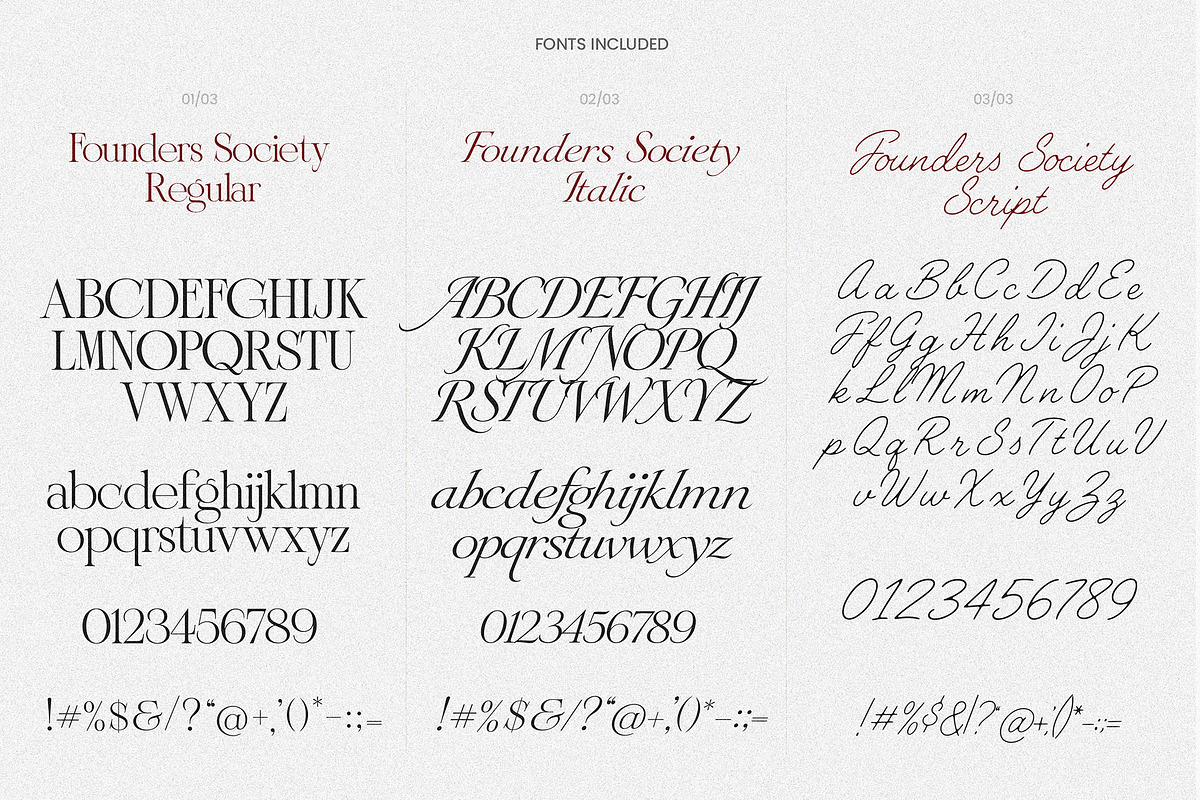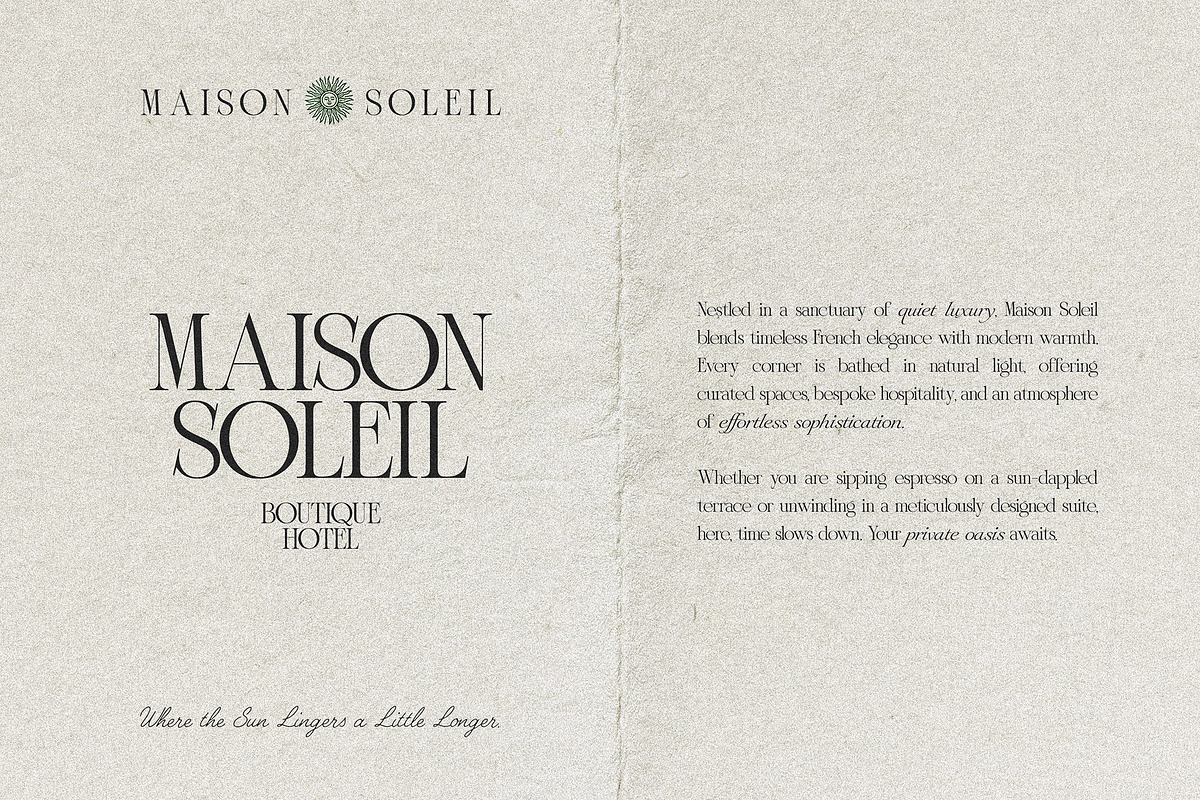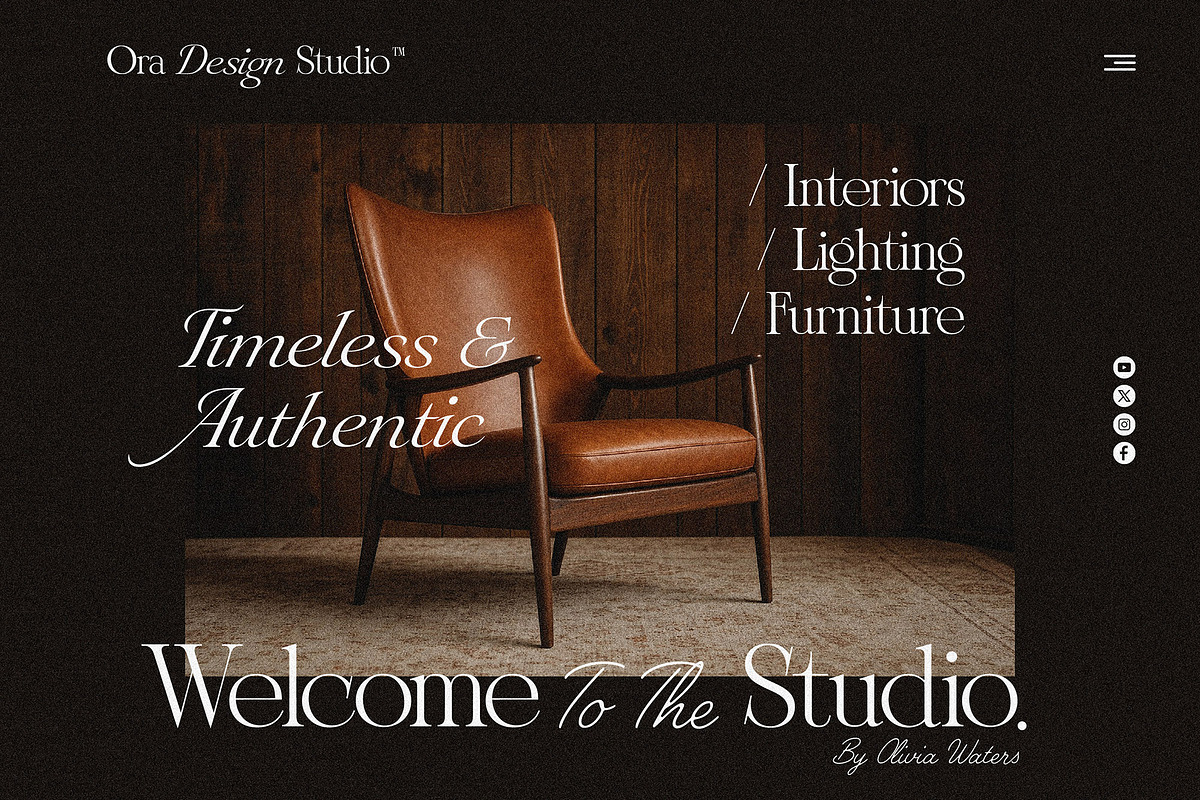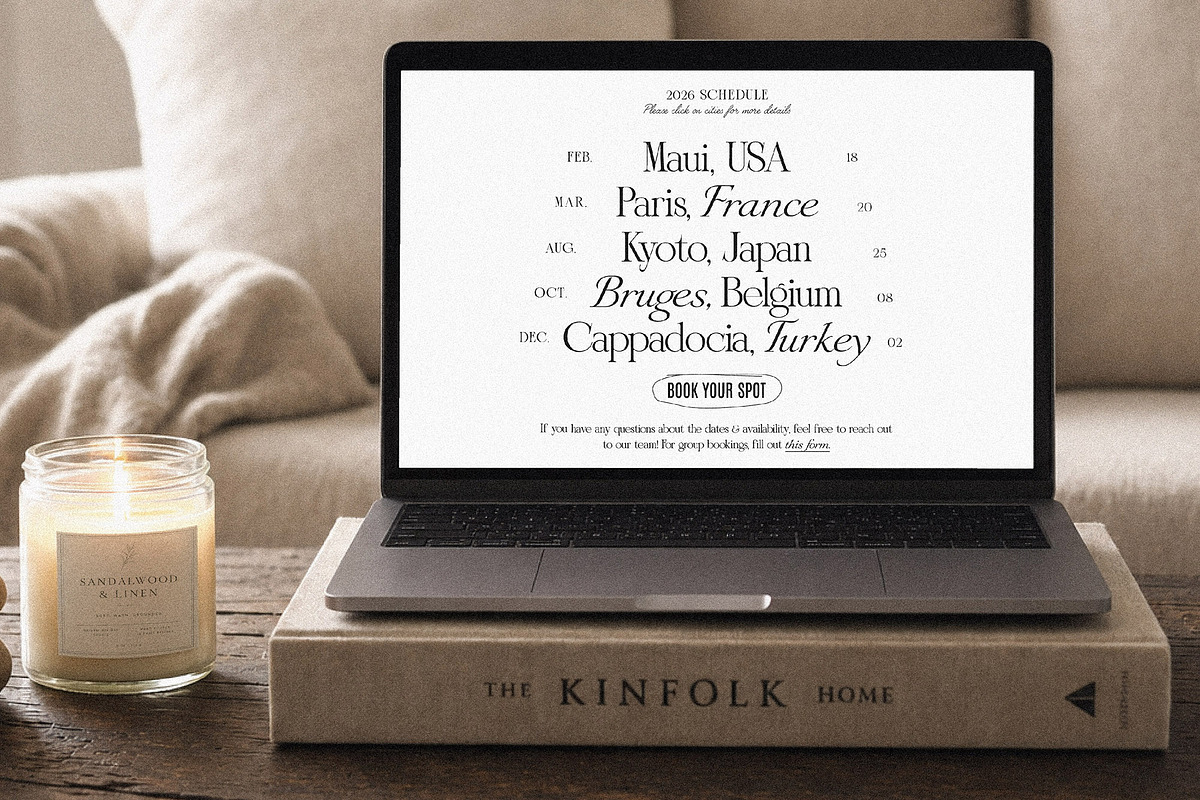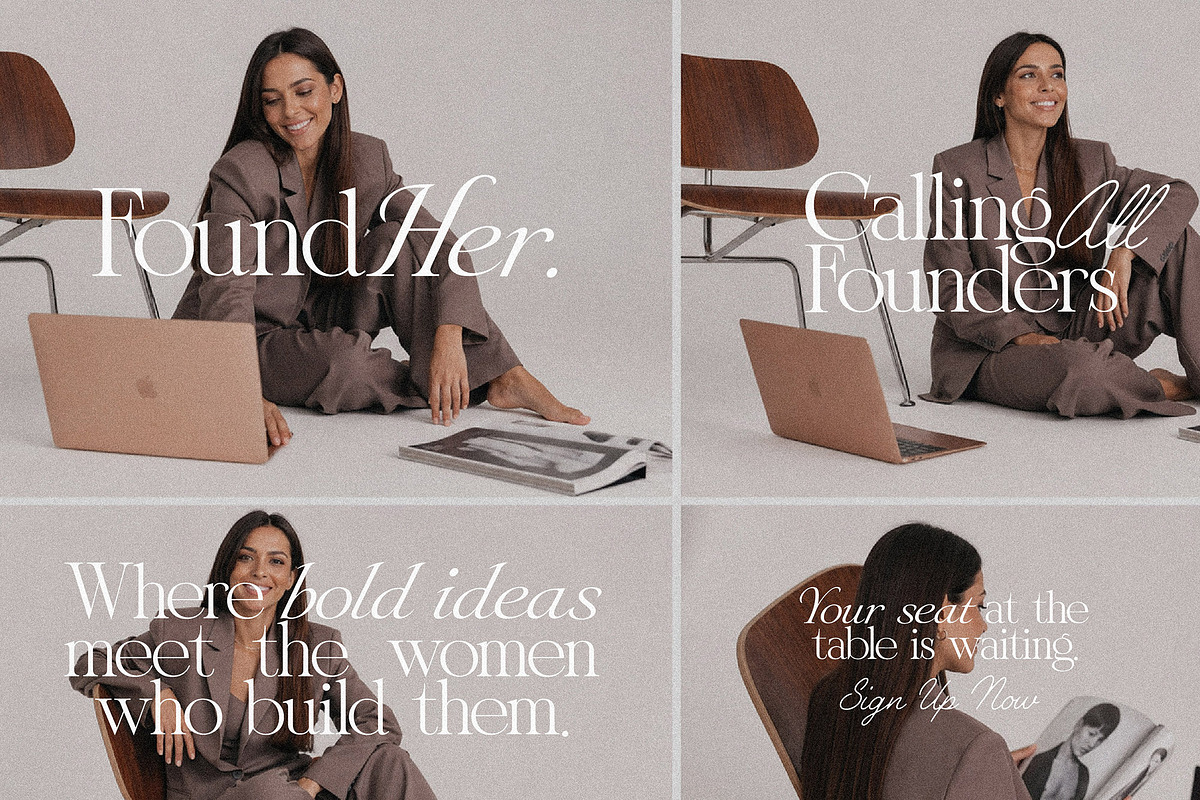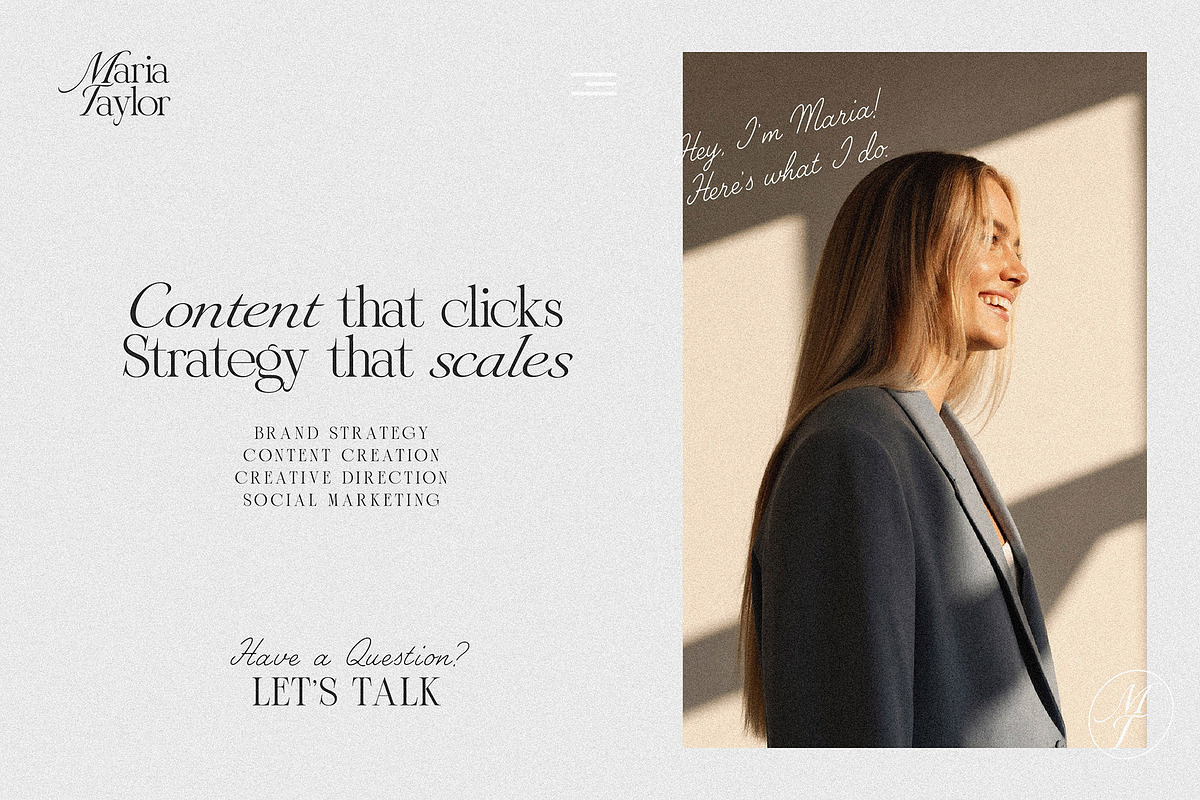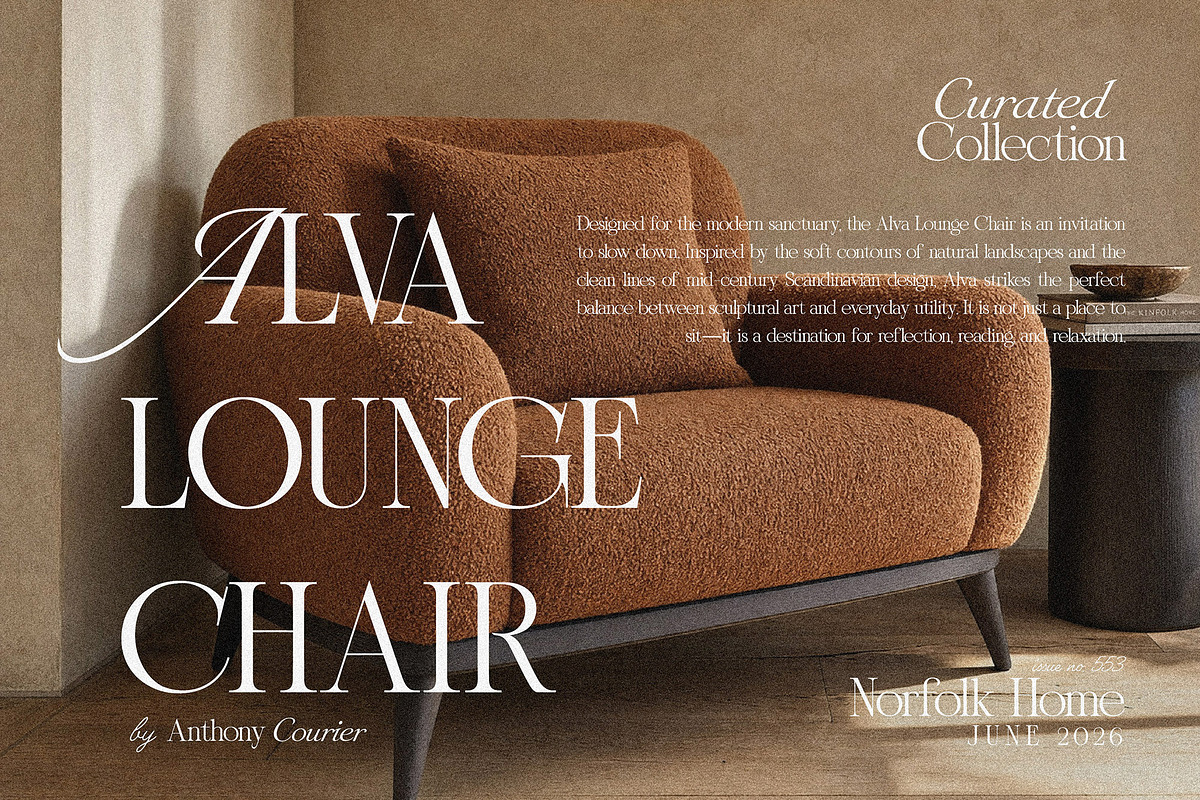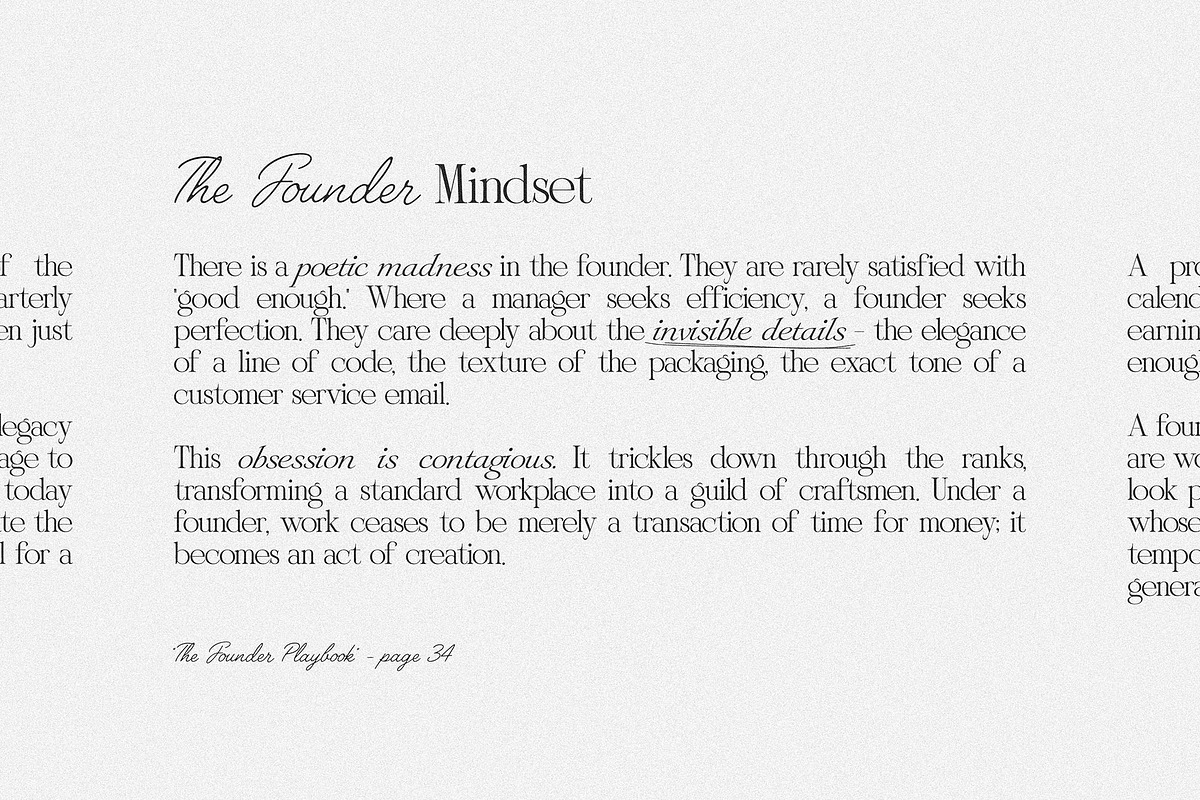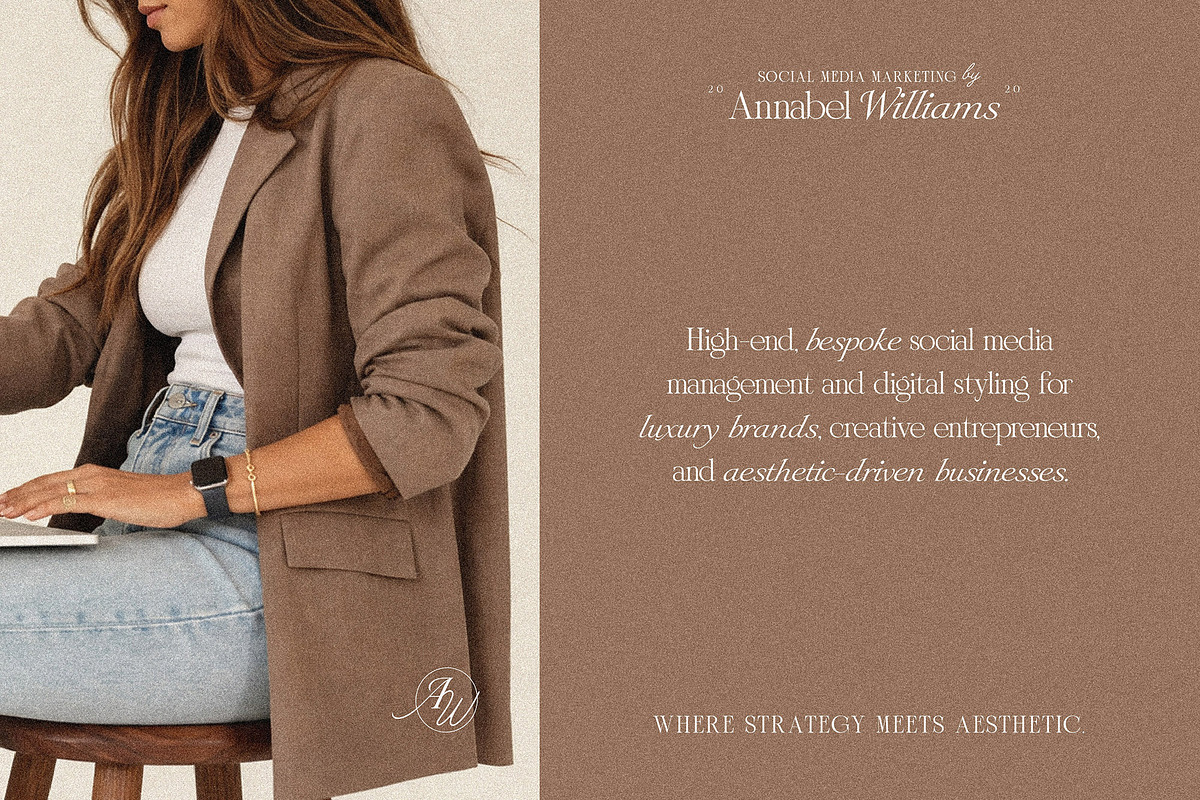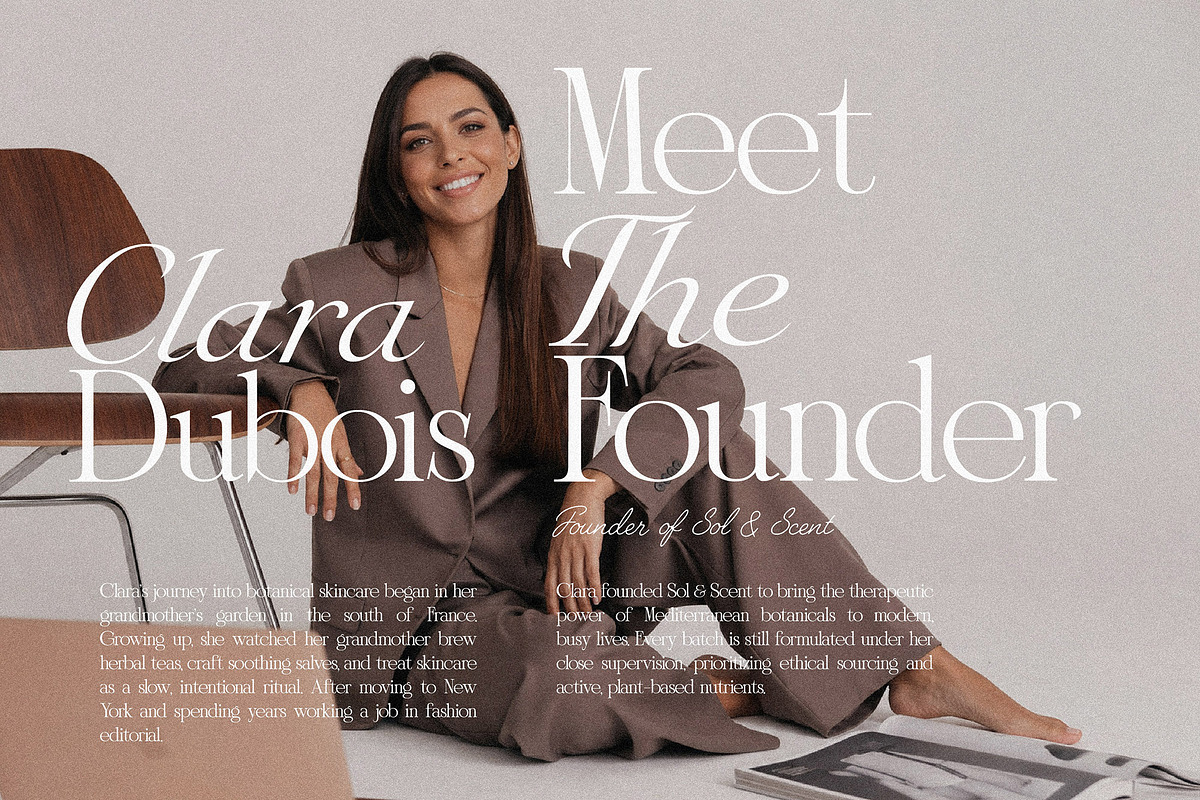
Founders Society - Editorial Trio
The Founders Society, a premium editorial font trio designed to bring a high-end, curated aesthetic to your creative projects. By seamlessly pairing a timeless, structured serif (available in both regular and italic) with a fluid, elegant script, this collection does the styling work for you, giving your brand an instant "quiet luxury" upgrade. Whether you are crafting bespoke wedding stationery, designing a luxury logo, or creating chic social media graphics, this versatile trio adds a polished, professional touch to everything you touch.
Branding & Logos: Create high-end, luxury brand identities, sub-marks, and chic business cards.
Wedding & Event Stationery: Design elegant invitations, RSVP cards, menus, and table numbers.
Cricut & Silhouette Crafts: Cut beautiful vinyl decals, custom apparel, mugs, and wooden signs.
Editorial & Layouts: Perfect for magazine headers, book covers, blog graphics, and Pinterest templates.
Packaging & Labels: Elevate product packaging, candle labels, cosmetics, and boutique tags.